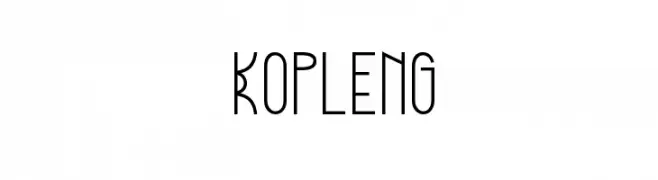
A high-contrast, modern serif font with elegant and stylish features.
A stylish and elegant script font with flowing, cursive letters.
A stylish and elegant script font with flowing, cursive strokes.
A modern, outlined font with a geometric and minimalistic design.
A stylish, handwritten script font with elegant curves and a personal touch.
A fluid, elegant handwritten font with a natural, flowing style.
A stylish, elegant script font with a handwritten feel and fluid, connected characters.
A modern italic font with smooth curves and a dynamic slant.
A modern, high-contrast font with elongated, vertically emphasized characters.
A bold, italic font with smooth curves and a modern, dynamic style.
A modern, geometric font with a consistent stroke width and slightly condensed style.
A stylish and elegant script font with flowing, connected letterforms.
A modern, inline font with bold, geometric characters and clean lines.
A stylish, elegant script font with flowing, connected characters.
A stylish and elegant script font with flowing, connected letterforms.
A modern, semi-bold italic sans-serif font with a sleek and dynamic appearance.
A stylish, cursive script font with elegant, flowing lines.
A stylish, cursive font with elegant curves and a dynamic slant.
A stylish and elegant script font with flowing, cursive design.
A sleek, modern italic font with smooth curves and clean lines.
A modern, light italic font with elegant and fluid design.
A modern, sleek font with elongated, narrow characters and a stylish, minimalistic design.
A sleek, modern italic font with smooth, slanted letterforms and rounded edges.
A modern, geometric font with unique cut-out details and clean lines.
A bold, dynamic script font with flowing, cursive letterforms.
A stylish and elegant script typeface with a flowing, cursive design.
A modern, narrow font with a sleek and sophisticated design.
A stylish, handwritten font with elongated, flowing lines and a sophisticated appearance.
A modern, italicized font with a sleek and dynamic style.
A sleek, modern italic font with elongated characters and smooth curves.
A modern, italicized font with medium contrast and a sleek, condensed style.